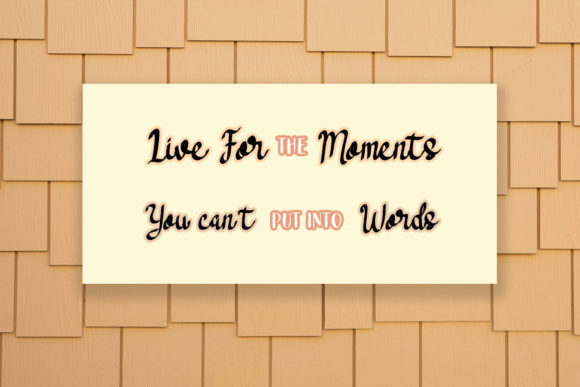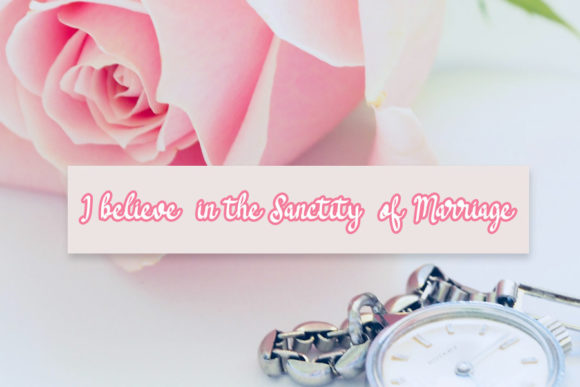
Beautiful Moment Font
db-ku.com - Script & Handwritten -- Beautiful Moment is a chic, refined script font that emanates sophistication and elegance. It’s stylish alternates and ligatures make this font the perfect match for any project.